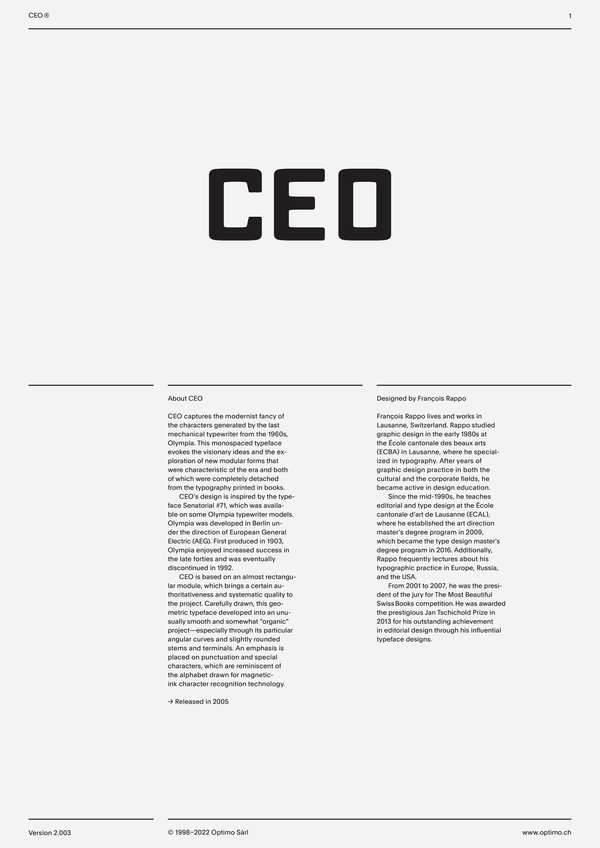
CEO
Case Sensitive Forms
All Caps [cpsp]
Case Sensitive Forms [case]
This function formats the text in uppercase and adjusts spacing between all capital letters. It also applies the ‘Case Sensitive Forms’ feature which replaces certain characters with alternates that are better suited for all capital text, especially related to punctuation.
Contextual Alternates
[calt]
This feature adapts the position of a glyph after its surrounding context. For instance, a dash placed between two uppercase letters or numbers will be replaced by an uppercase version of the dash, slightly higher. This feature is usually active by default in Adobe applications.
This feature replaces any letter following a numeral with its matching superior letters. Spanish, Portuguese and Italian language uses the feminine and masculine ordinal indicators such as ‘a’ for for 1º, 1ª. Ordinals are designed to match the weight of the typeface.
CEO captures the modernist fancy of the characters generated by the last mechanical typewriter from the 1960s, Olympia. This monospaced typeface evokes the visionary ideas and the exploration of new modular forms that were characteristic of the era and both of which were completely detached from the typography printed in books.
CEO’s design is inspired by the typeface Senatorial #71, which was available on some Olympia typewriter models. Olympia was developed in Berlin under the direction of European General Electric (AEG). First produced in 1903, Olympia enjoyed increased success in the late forties and was eventually discontinued in 1992.
CEO is based on an almost rectangular module, which brings a certain authoritativeness and systematic quality to the project. Carefully drawn, this geometric typeface developed into an unusually smooth and somewhat “organic” project—especially through its particular angular curves and slightly rounded stems and terminals. An emphasis is placed on punctuation and special characters, which are reminiscent of the alphabet drawn for magnetic-ink character recognition technology.